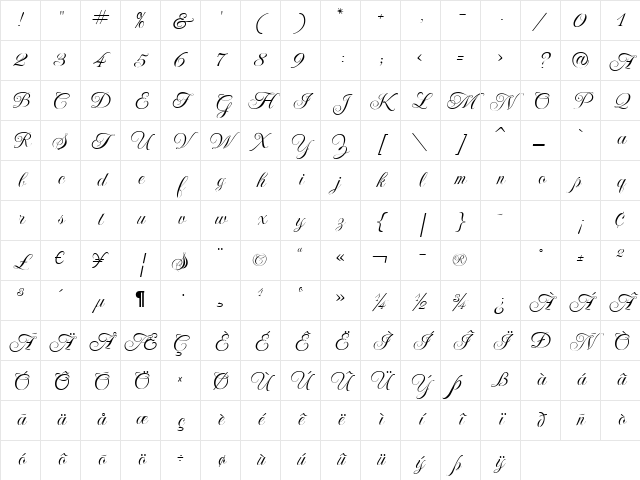
P22 Imperial Script Regular
Foundry: P22 type foundry
Designer: Rob Leuschke
Design Context for P22 Imperial Script
P22 Imperial Script flows with the natural rhythm of handwritten lettering, making it ideal for designs that call for warmth and personal expression.
Font Pairing: Combine P22 Imperial Script with a simple geometric sans for maximum contrast - the tension between flowing curves and clean structure is a classic typographic pairing.
Pro Tip: Use P22 Imperial Script for short runs of text - names, titles, or taglines. Extended body copy in script faces tires the eye quickly.